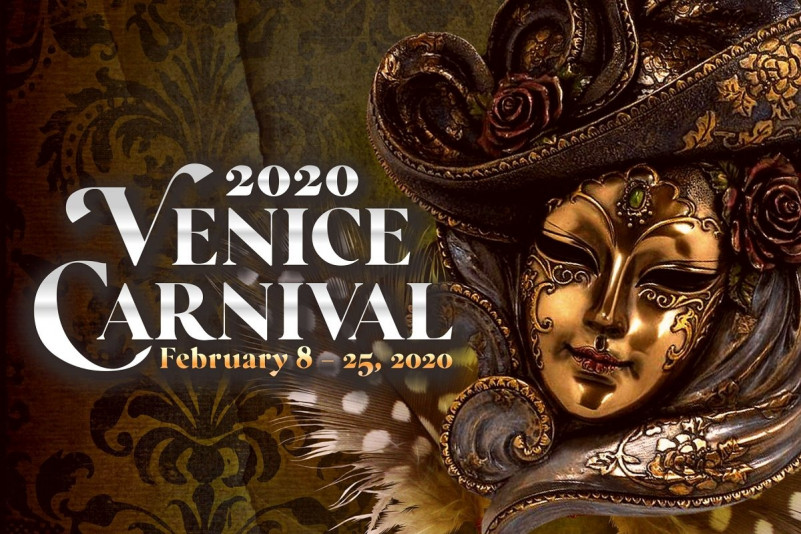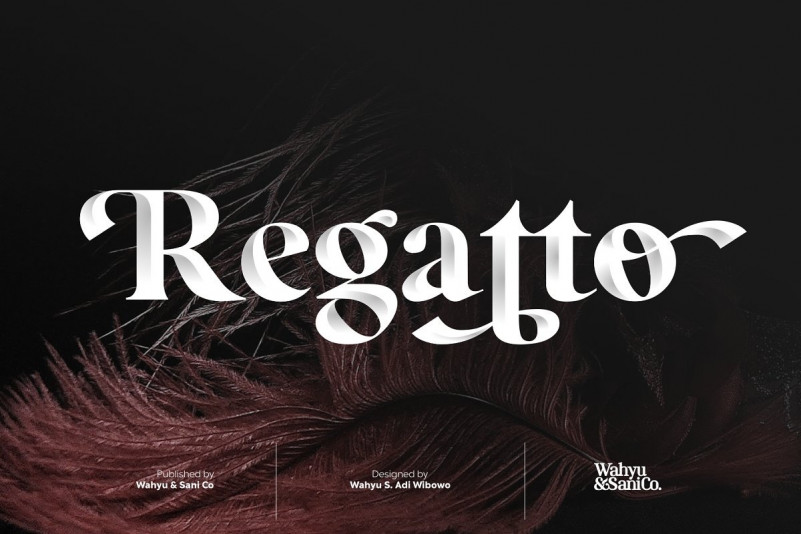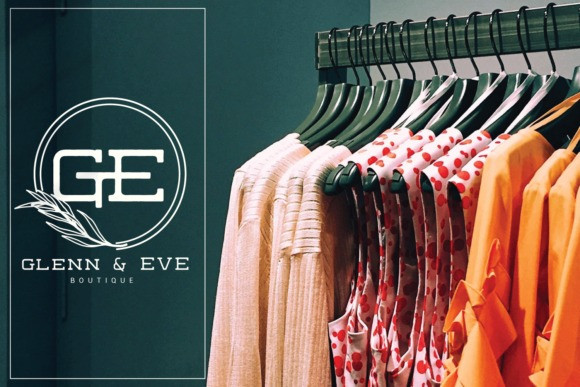
Regatto Serif Font
Inspired by the beauty and elegance of Venetian Style typeface, Regatto was created in high-contrast and bold style. It comes with a lot of alternates and ligatures with their own variants for any purposes from headline to poster. This font also has some letters with diacritics accent to support some other non-English languages.